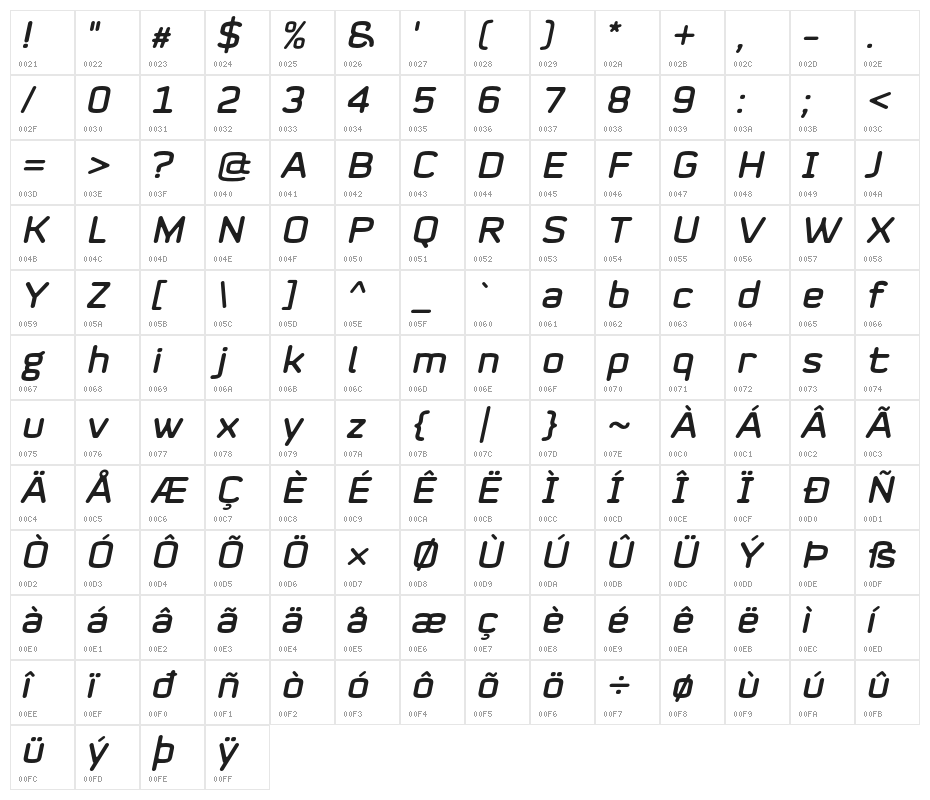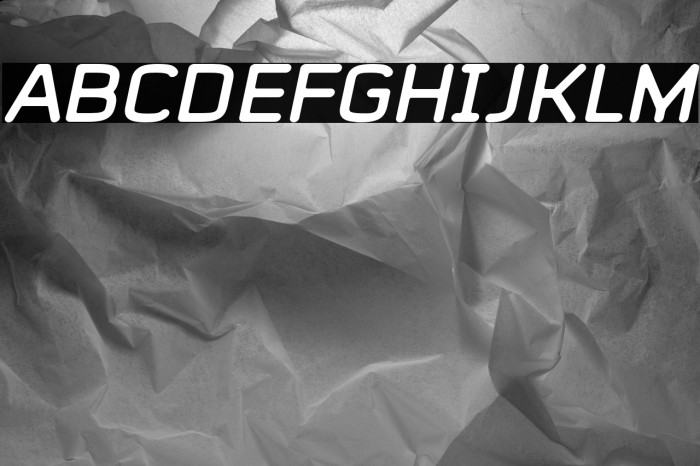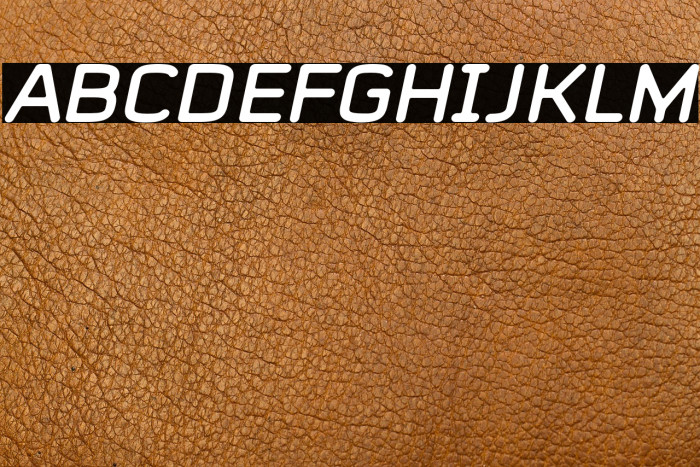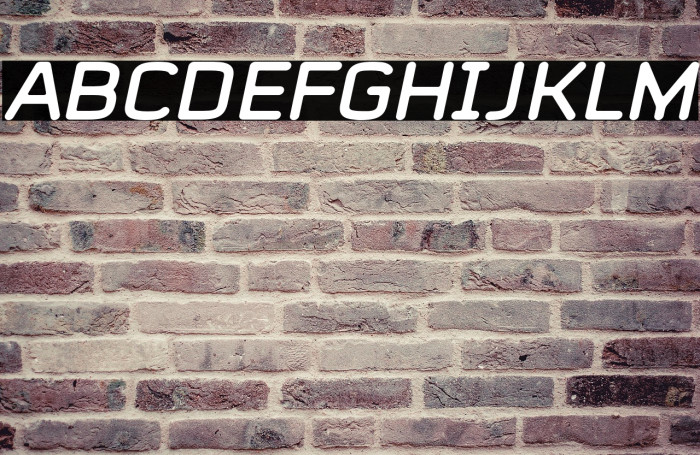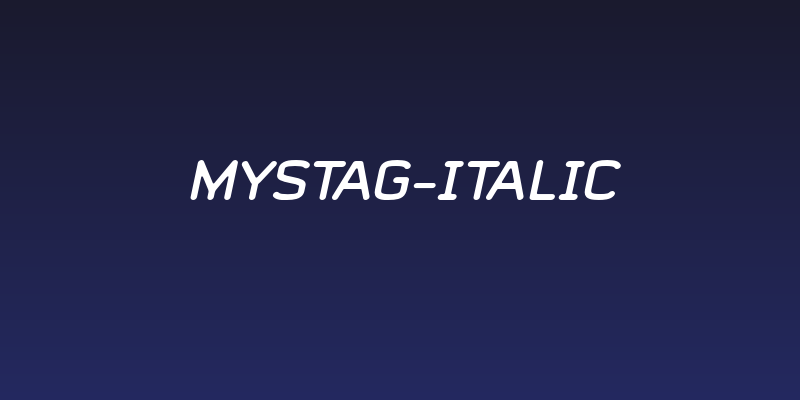
Mystag-Italic Font
Mystag-Italic Description
This font features a sleek, italicized style with a modern and slightly futuristic appearance. The characters are slightly slanted, giving a sense of motion and dynamism. The strokes are consistent in thickness, providing a uniform look across all characters. The rounded edges add a touch of softness, balancing the overall sharpness of the italic slant. This font is versatile, suitable for both digital and print media, and can be used to convey a sense of speed and modernity.
| Use Case | Headlines, Logos, Digital interfaces |
| Proposed Projects | Ideal for branding, advertising, sports-related content, and modern web design. |